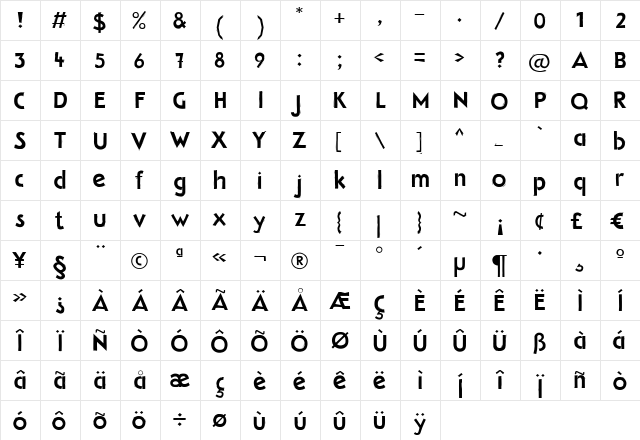
Woody Plain Regular
Design Context for Woody Plain Typeface
Woody Plain echoes the hand-painted signage and woodblock typography of the American frontier, with a warm, rugged personality.
A natural fit for craft spirits, ranch branding, rodeo events, and Americana-inspired design work.
Font Pairing: Combine Woody Plain with a simple slab or neutral sans — period-accurate companions reinforce the vintage feel without competing for attention.
Pro Tip: Use Woody Plain for short, impactful bursts of text — it shines in poster headlines and product names rather than extended copy.